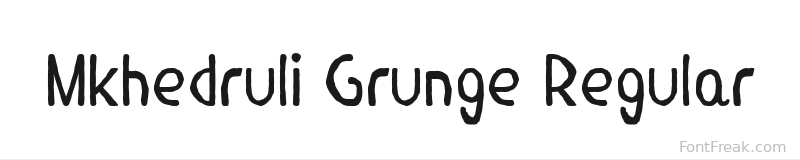
Mkhedruli Grunge Italic
Mkhedruli Grunge Regular
About Mkhedruli Grunge Italic
Mkhedruli Grunge Italic by GGBot is a distinctive decorative typeface that brings a unique twist to the traditional Mkhedruli style. This font, categorized as a grunge italic, showcases irregular strokes and a rugged aesthetic, making it perfect for designs that aim to convey a sense of authenticity and character. The stroke weight varies, creating a dynamic contrast that draws attention to its playful yet bold appearance. The slightly uneven spacing and the rough edges of the characters enhance its grunge effect, allowing it to stand out in any composition.
The Mkhedruli Grunge Italic font is incredibly versatile, making it suitable for a variety of creative applications. It works exceptionally well for event posters, where its unique style can capture the audience’s interest. Additionally, this font is ideal for branding elements of artisanal businesses, such as craft breweries or local cafes, where a touch of personality is essential. Wedding invitations can also benefit from its charming irregularities, adding a whimsical feel that resonates with modern couples. Moreover, it can enhance social media graphics, giving content creators a distinctive edge in a crowded digital landscape.
What sets the Mkhedruli Grunge Italic font apart is its ability to blend tradition with a contemporary grunge aesthetic. This font not only conveys the essence of the Mkhedruli script but also adds a fresh and artistic flair to any project. For those looking to elevate their designs, the Mkhedruli Grunge Italic font free download is a must-have addition to any font library.
Author GGBot